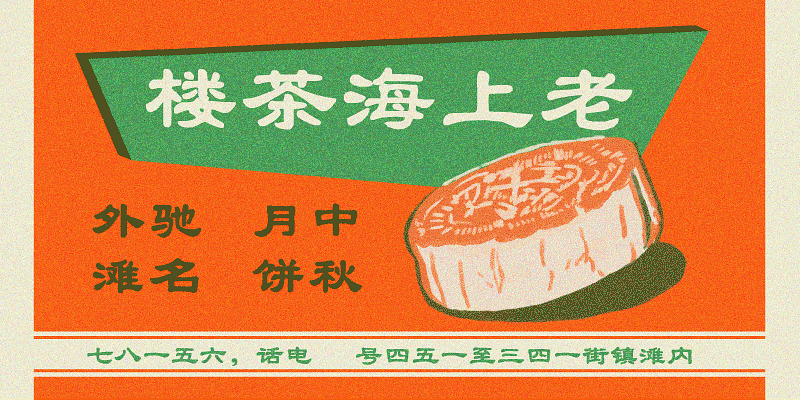
Hellofont ID Qing Hua Kai Font Free Download
HelloFont ID Qing Hua Kai Font Free Download
HelloFont ID Qing Hua Kai Font Free Download is a beautifully designed calligraphic font inspired by traditional Chinese writing. With its smooth strokes and elegant structure, this font is perfect for projects that require a refined, artistic touch, such as cultural branding, invitations, logos, and artistic designs.
The HelloFont ID Qing Hua Kai Font works well for both large display text and smaller body copy, maintaining legibility while exuding grace and character. It integrates seamlessly with design tools like Adobe Illustrator, Photoshop, Figma, and Canva, offering versatility for both print and digital media.